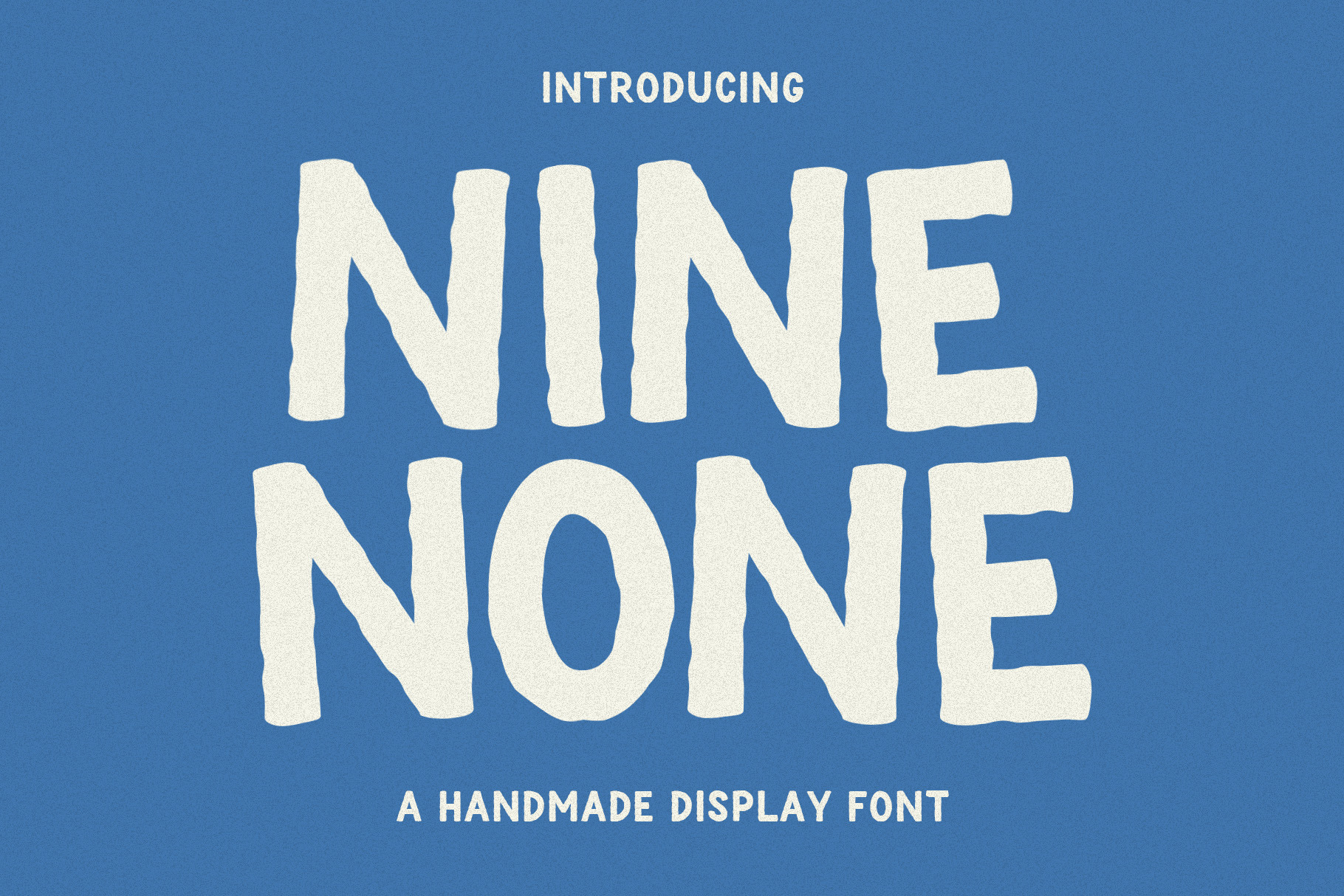
Nine None Font - Bold Font
Nine None is a captivating, bold font that effortlessly blends modernity with the timeless charm of handwritten script. With its bold strokes and distinctively crafted characters, this typeface exudes confidence and personality. This typeface available in SVG format, compatible with advanced tools such as Cricut and Glowforge, and for use in Procreate. The handcrafted details give "Nine None" a unique character, making it perfect for a variety of applications, from eye-catching headlines to impactful branding.